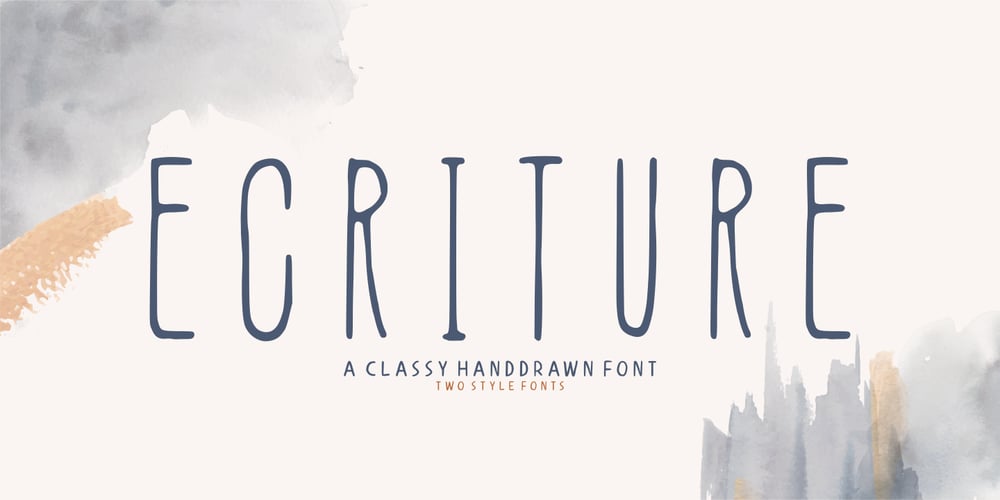
Ecriture
Ecriture font
Ecriture Font Family was designed by Risman Ginarwan and published by Garisman Studio. Ecriture contains 3 styles and family package options. Ecriture Hand drawn Font was born from original and hand-drawn style font. This font gives a feel of classic, old, handmade look. Already PUA Encoded, and I think this font is perfect for people looking for an aesthetic or hand-drawn logo. Suitable for graphic designs such as branding materials, t-shirt, print, business cards, logos, posters, t-shirt, photography, quotes and more.What Advantages? Simple installation Multilingual Support with Accents PUA Encode Support for MAC and PC